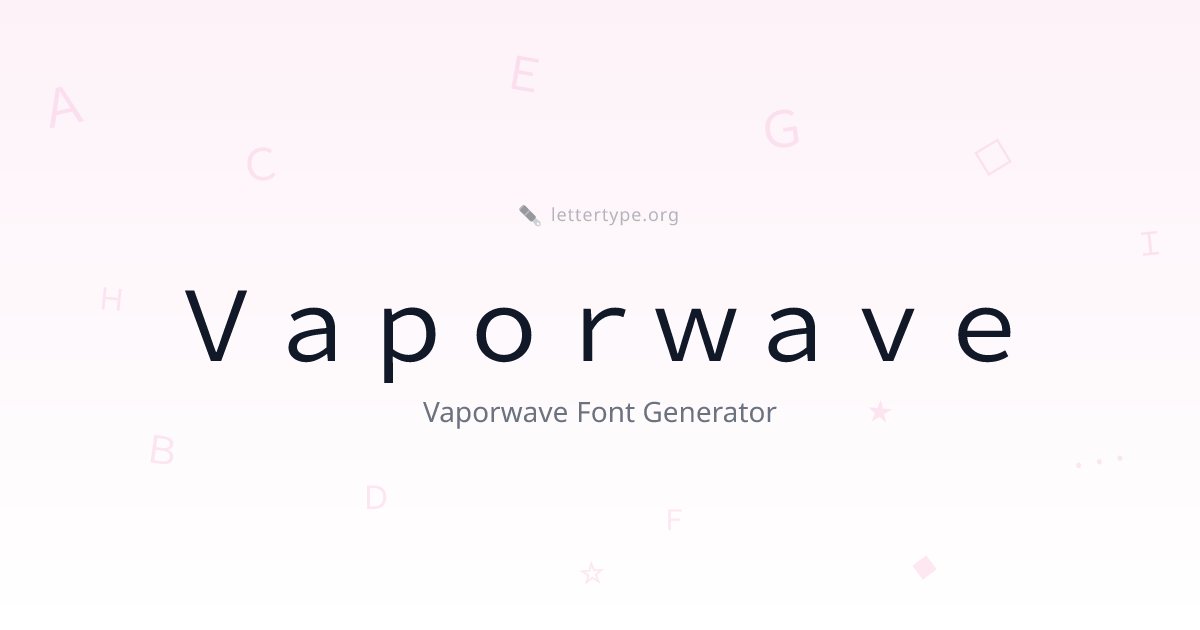
Vaporwave font uses fullwidth Unicode characters โ wide, evenly-spaced letters that evoke the nostalgic aesthetic of 80s and 90s computing, Japanese city pop, and the retro-futurist visual style of vaporwave culture. Every character takes up the same width as a CJK (Chinese-Japanese-Korean) character, creating that distinctive ๏ฝ๏ฝ ๏ฝ๏ฝ๏ฝ spacing.
What Is Vaporwave Font?
Vaporwave font โ also called fullwidth text or aesthetic font โ converts standard ASCII characters to their fullwidth equivalents in the Unicode Halfwidth and Fullwidth Forms block (U+FF01โU+FF5E). Spaces become ideographic spaces (U+3000), giving the text its characteristic wide, airy feel.
The style emerged from vaporwave music and art โ a genre defined by slowed-down 80s pop, pastel colors, Greek statues, and Japanese text overlaid on Windows 95 interfaces. Fullwidth text became its typographic signature.
Vaporwave Culture and Aesthetic
Vaporwave emerged in the early 2010s as a microgenre and visual aesthetic built around:
- Nostalgia โ remixed 80s/90s corporate music, mall ambience, and early internet sounds
- Japanese influence โ katakana text, anime references, and city pop aesthetics
- Retrofuturism โ imagining what the future looked like from the past
- Fullwidth text โ the typographic hallmark that signals the aesthetic instantly
Artists like Macintosh Plus, Blank Banshee, and Saint Pepsi popularized the sound, while the fullwidth font became shorthand for the entire visual language.
Vaporwave Font โ FAQ
Why does vaporwave text have extra spaces between letters?
Fullwidth Unicode characters (๏ผกโ๏ผบ, ๏ฝโ๏ฝ) each take up the same horizontal width as a CJK (Chinese-Japanese-Korean) character โ roughly twice the width of a standard Latin letter. This creates the characteristic wide spacing without adding actual space characters. It's the visual signature of the vaporwave aesthetic.
Is vaporwave font the same as fullwidth or aesthetic font?
Yes โ they're the same Unicode block, just called different things by different communities. "Vaporwave font" is used by the retro/aesthetic community, "fullwidth" is the technical Unicode term, and "aesthetic font" became popular on Instagram and TikTok. All refer to characters in the Unicode Halfwidth and Fullwidth Forms block (U+FF01โU+FF5E).
Is vaporwave aesthetic still relevant?
Vaporwave as a genre peaked in 2012โ2016 but the visual aesthetic โ including fullwidth text โ has become a permanent part of internet culture. It influences lo-fi hip hop aesthetics, synthwave, retrowave, Y2K revival, and soft aesthetic communities. The fullwidth font is still widely used across all of these.